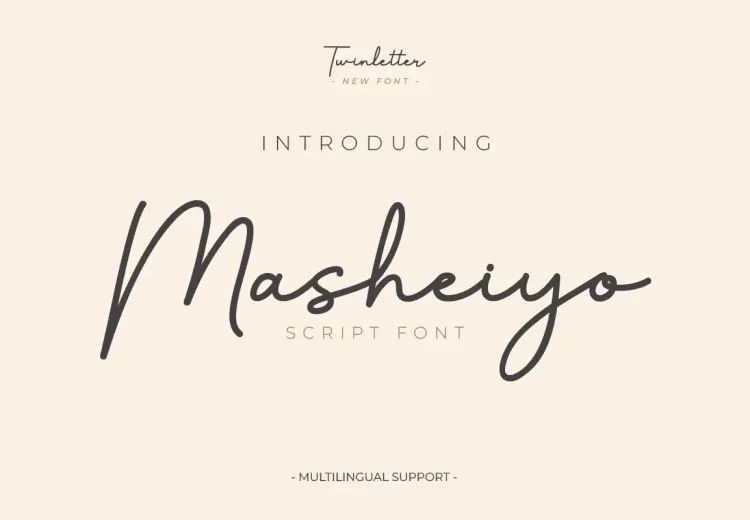
Masheiyo Font
Masheiyo is a monoline script font that elegantly combines simplicity with sophistication. Its smooth, clean lines make it an ideal choice for minimalist designs, while its unique characters add a creative flair that ensures your designs stand out. Whether you’re crafting stylish logos, company names, or other branding elements, Masheiyo provides a subtle yet impactful touch.
More than just a typeface, Masheiyo is an expression of refined style, perfect for those who value simplicity but still want their designs to capture attention. It brings a distinctive presence to any project, like a quiet statement that demands recognition.